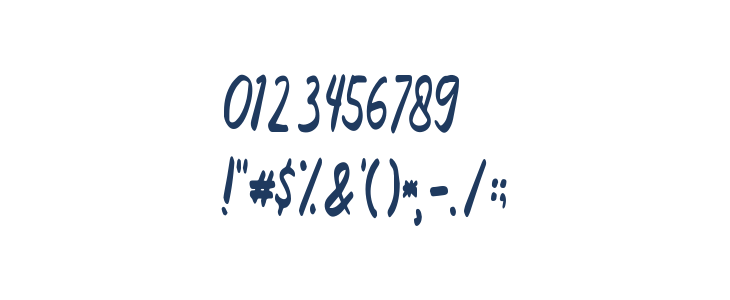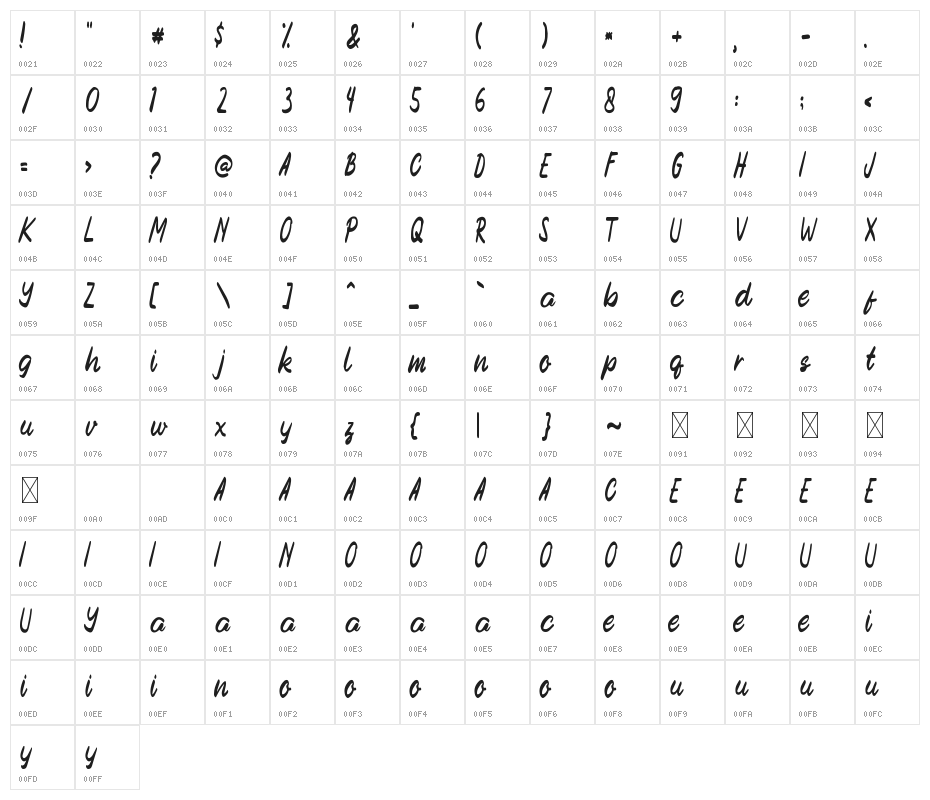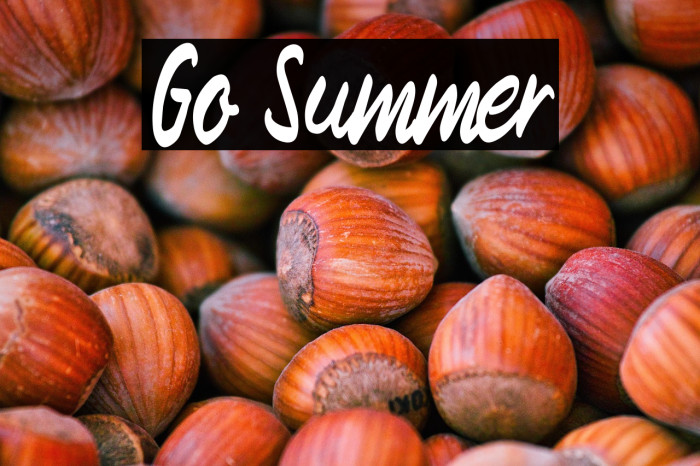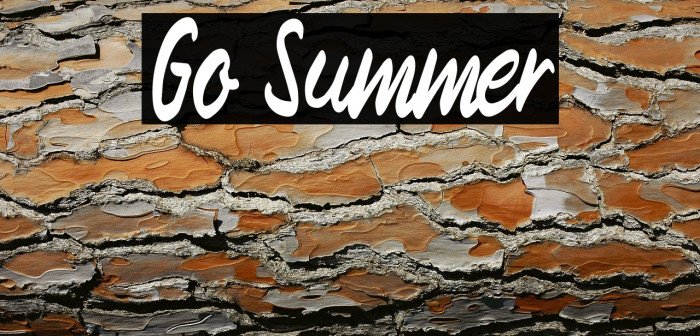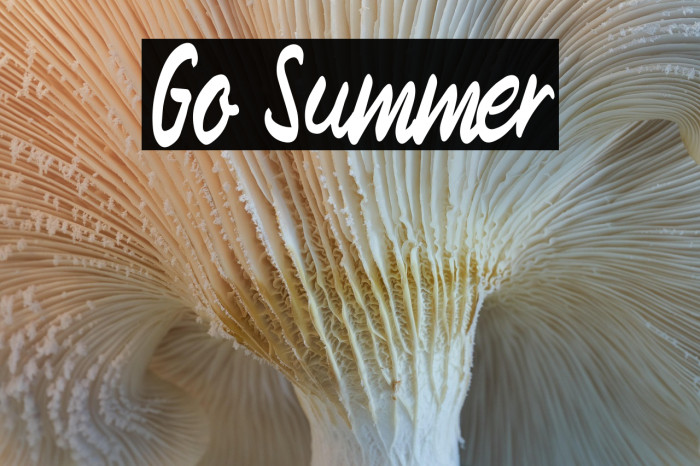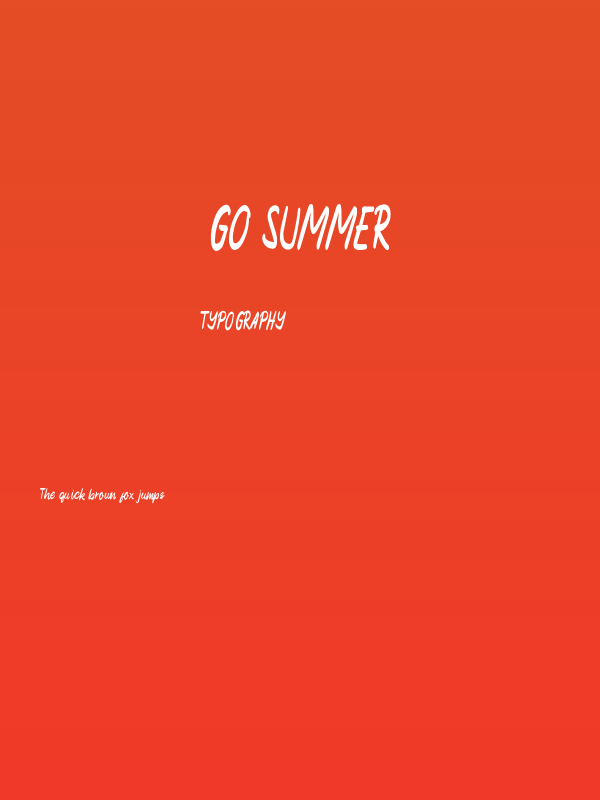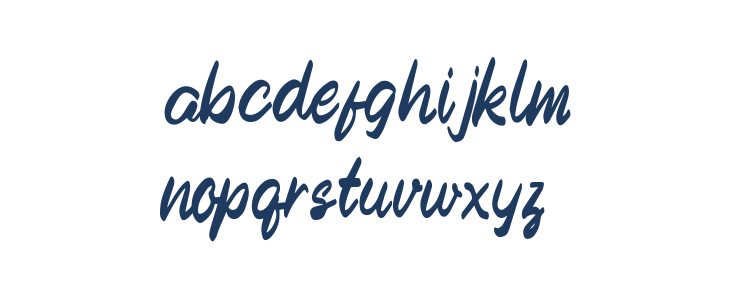
Go Summer Font
Go Summer Description
This font features a playful and energetic script style, characterized by its fluid, handwritten appearance. The letters are slightly slanted, giving a sense of motion and dynamism. The strokes are bold and consistent, with a smooth flow that connects some of the characters, enhancing its casual and informal look. The uppercase letters are tall and prominent, while the lowercase letters maintain a balanced proportion, ensuring readability. The numbers and special characters follow the same lively style, making them suitable for various creative applications.
| Overall Style | Casual |
| Use Case | Logos, Headlines, Invitations |
| Proposed Projects | Ideal for greeting cards, invitations, branding projects, and social media graphics where a personal touch is desired. |